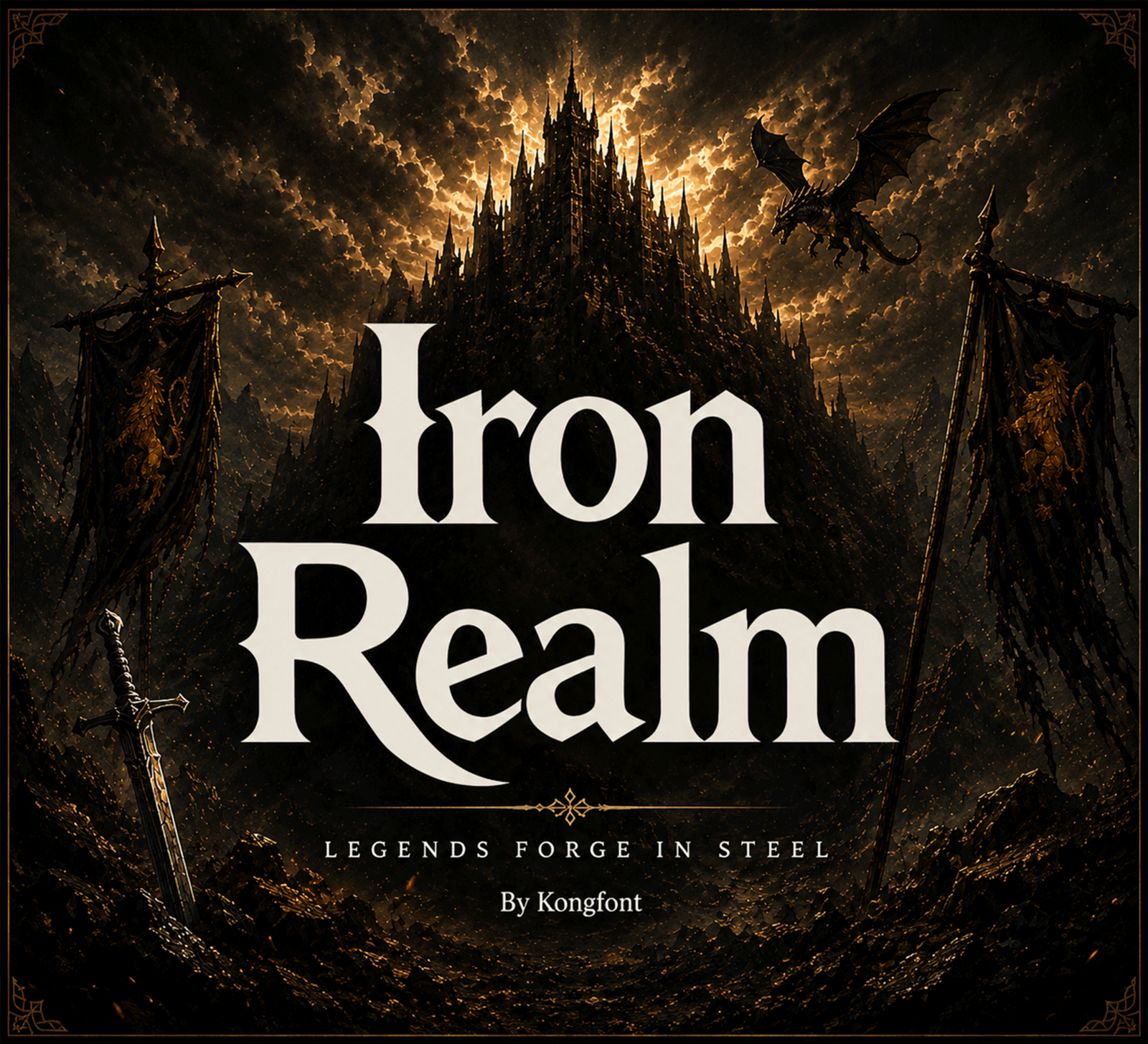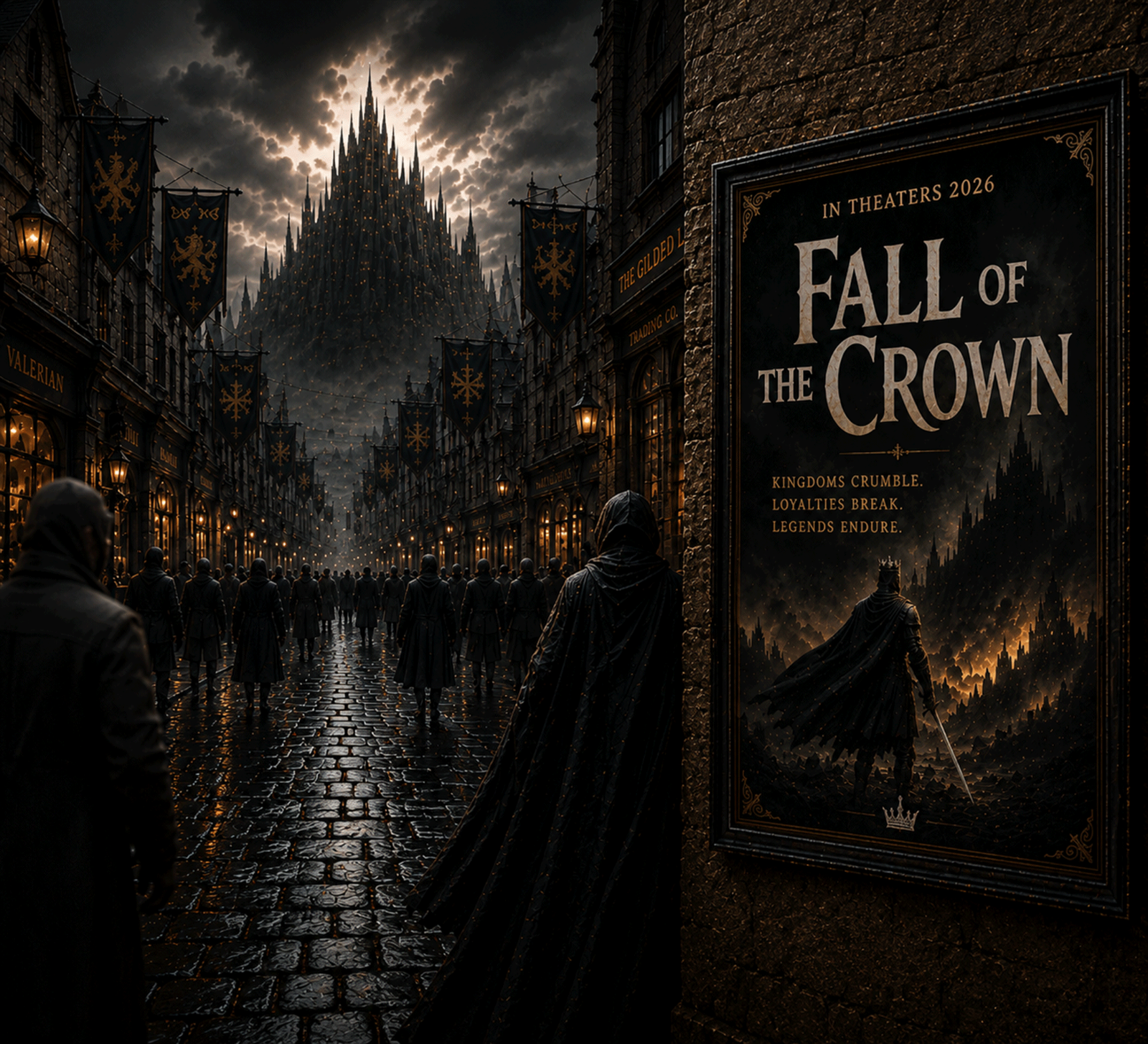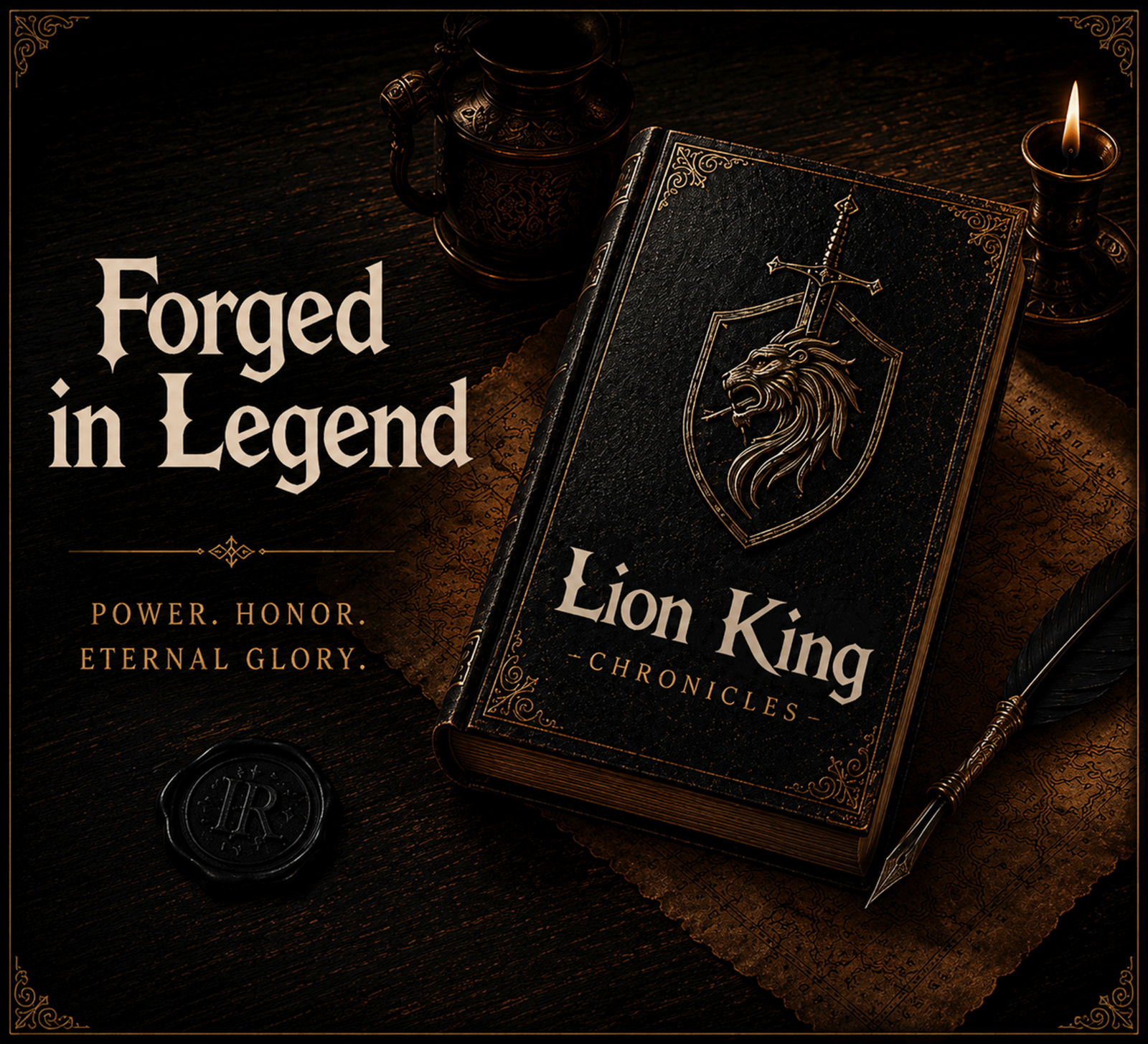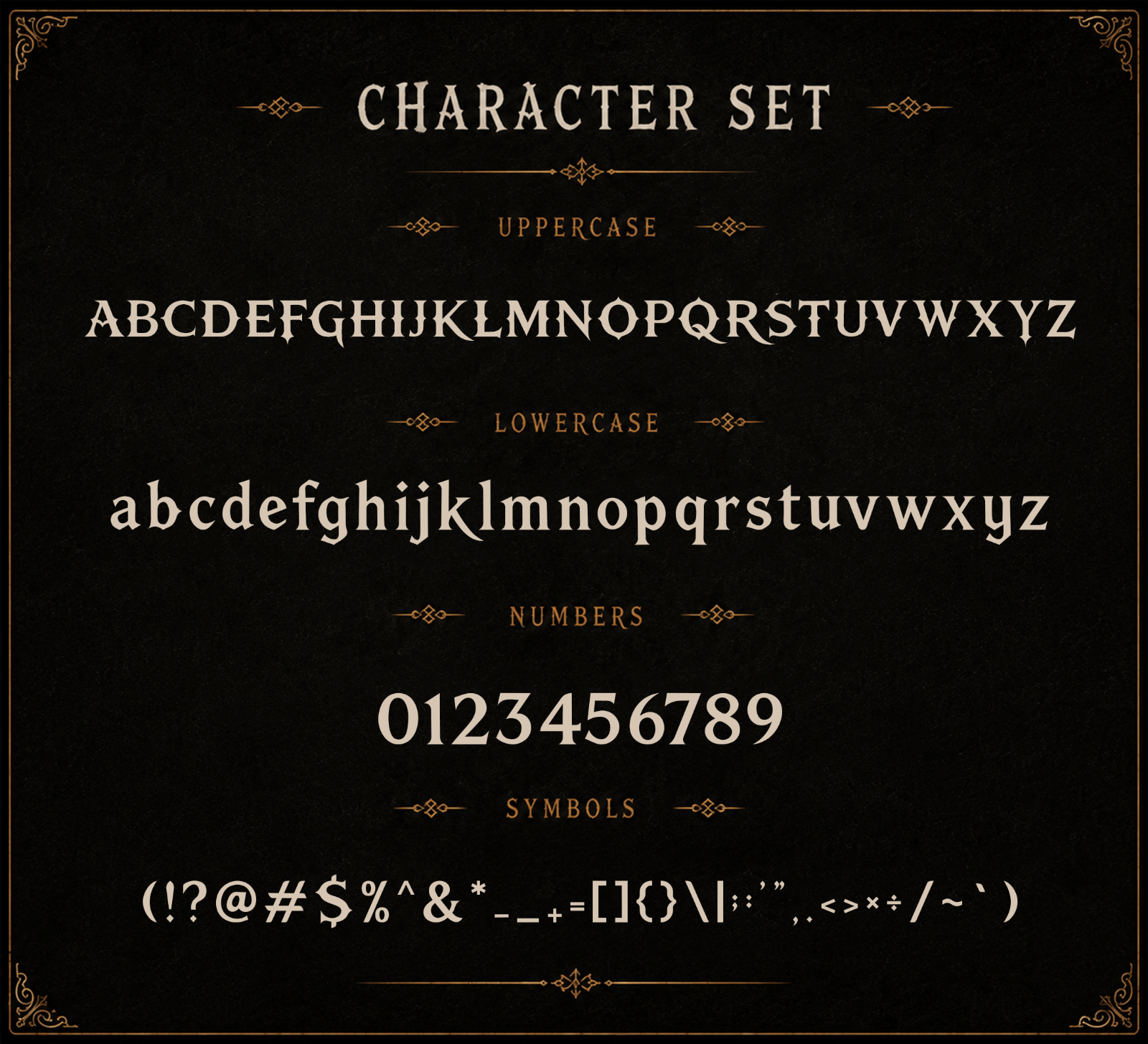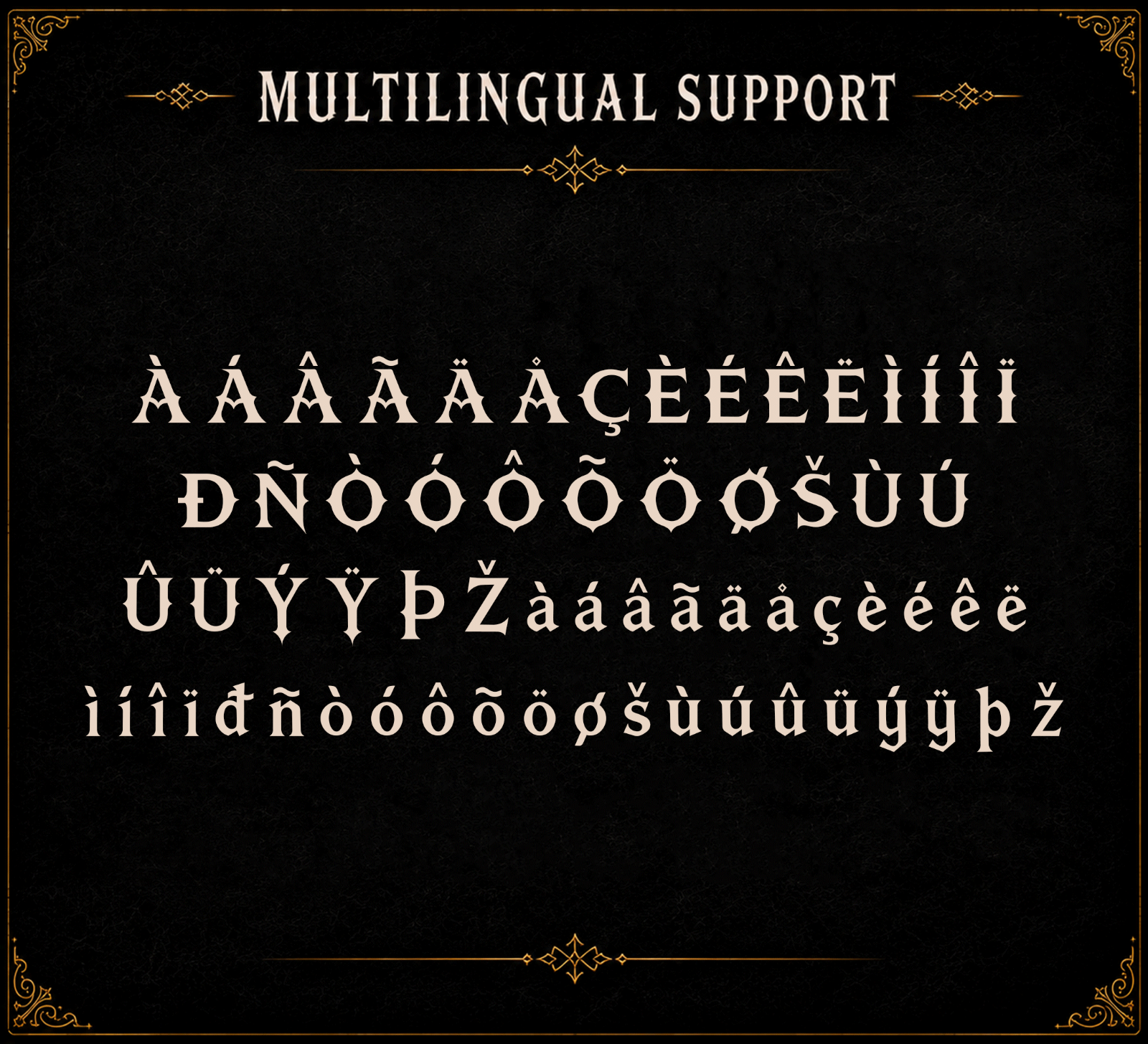
Iron Realm is a bold fantasy serif font inspired by medieval kingdoms, legendary warriors, and epic adventures. Its sharp serif details and strong letterforms create a dramatic, heroic, and cinematic look.
• Fantasy book covers
• Game titles
• Movie posters
• Medieval branding
• Logos
• YouTube thumbnails
• Merchandise
• Adventure-themed designs
• Dark fantasy projects